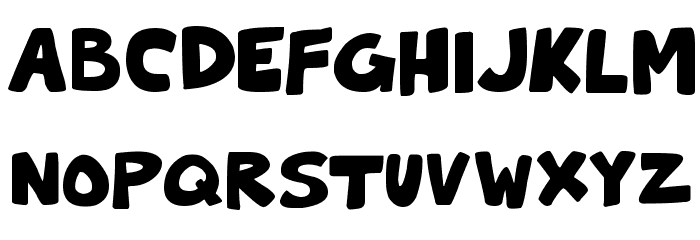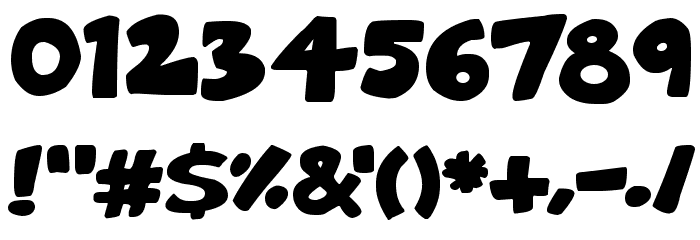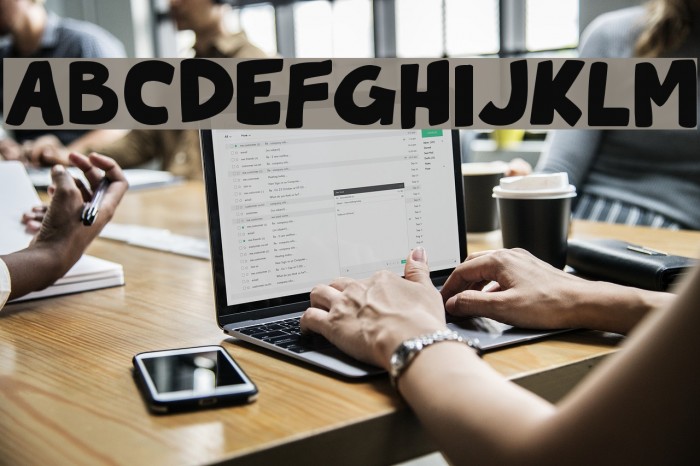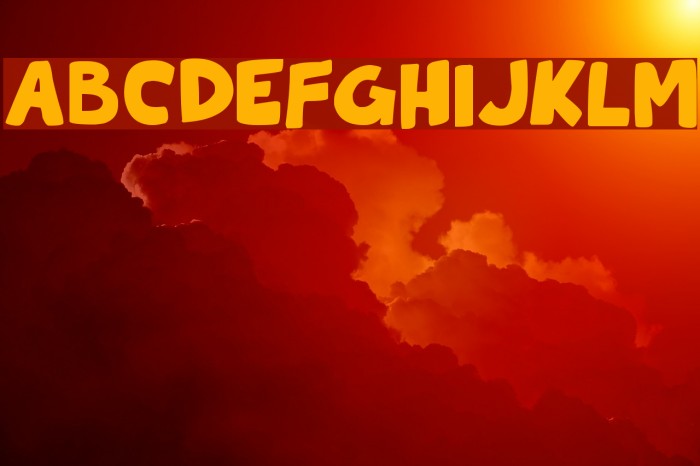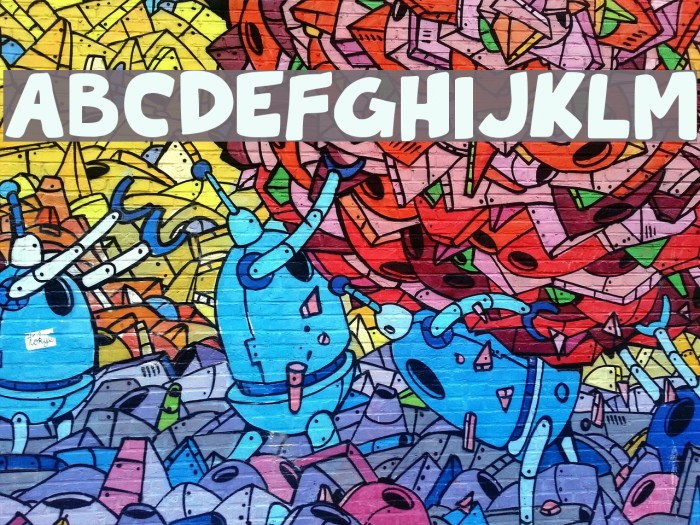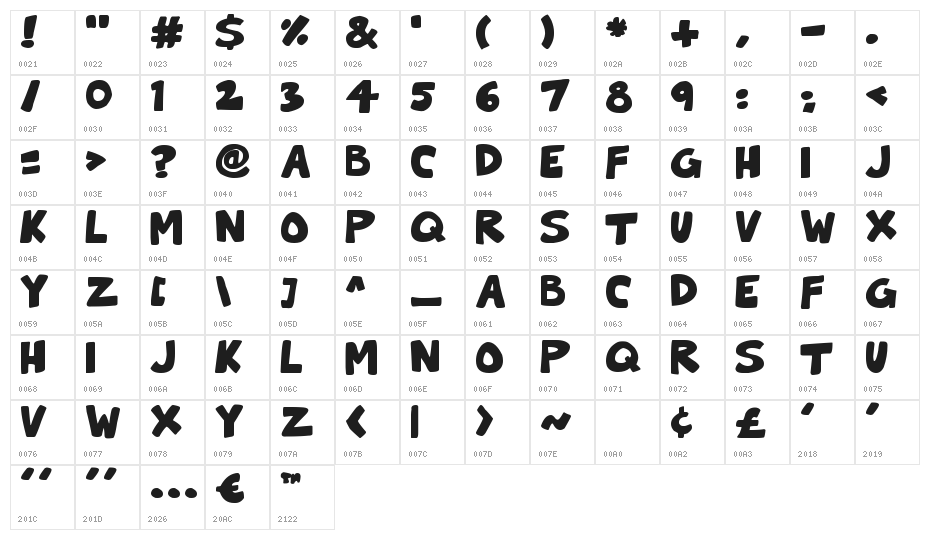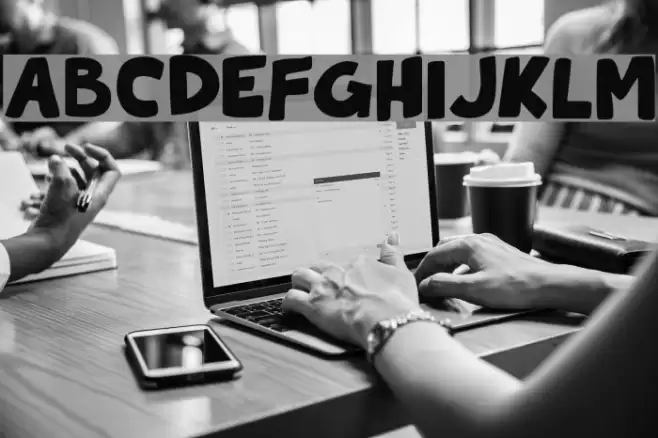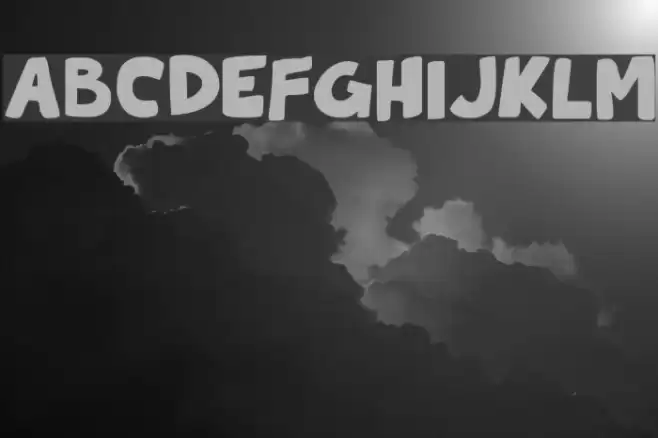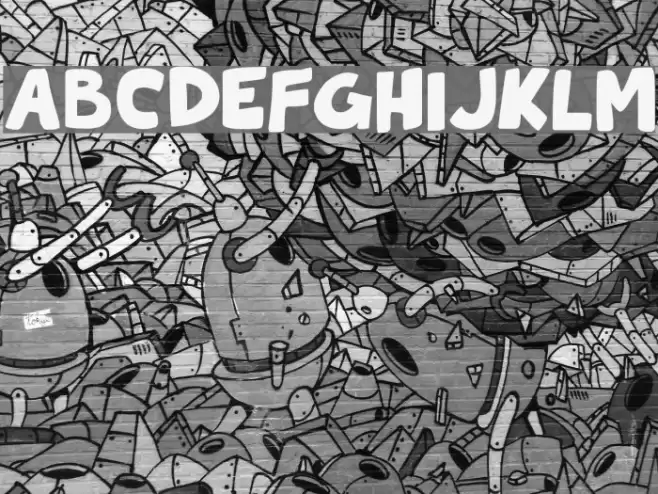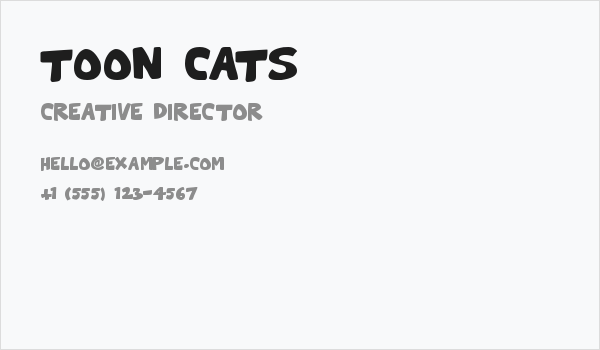
Toon Cats Font
This playful and bold font features thick, rounded characters that exude a sense of fun and whimsy. The letters are slightly irregular, giving them a hand-drawn appearance that adds to their charm. The font is highly legible, with each character distinct and easily recognizable. The numbers and special characters maintain the same playful style, making it versatile for various uses. Its boldness ensures it stands out, making it ideal for attention-grabbing designs.
A playful, bold font with rounded, hand-drawn characters.
- Proposed Projects: Perfect for children's books, comic strips, playful branding, and eye-catching posters.
- Overall Style: Playful